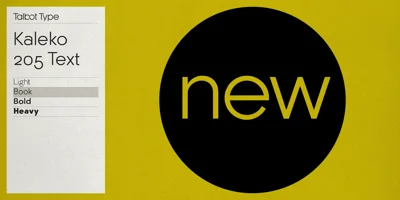
Kaleko 205 Text Font
Kaleko 205 Text Font is perfect for corporate document layouts, professional publications, editorial magazine designs, business report formatting, academic textbooks, technical documentation, contemporary book typography, and sophisticated reading materials.
Kaleko 205 Text Font is exciting because it represents the perfect synthesis of typographic excellence and reading comfort through its meticulously crafted character design that embodies the precision of modern typography and the optimal legibility required for extended reading applications. Its professional styling and readable appeal make it the perfect choice for brands that want to communicate competence, clarity, and the essential importance of effective written communication.
Kaleko 205 Text Font family includes multiple professional variations: Kaleko 205 Text Light, Kaleko 205 Text Regular, Kaleko 205 Text Medium, Kaleko 205 Text Bold, Kaleko 205 Text Italic, and Kaleko 205 Text Heavy, along with comprehensive character sets and professional typographic features, providing designers with comprehensive tools for creating sophisticated publishing and corporate communication experiences.
When exploring professional text typography solutions, Kaleko 205 Text Font emerges as the definitive choice for designers working on publishing and corporate projects that require genuine typographic sophistication and optimal readability. This exceptional typeface embodies the essence of professional communication while offering the technical precision that contemporary publishers and corporate organizations require. The font's readable character and professional authenticity create immediate connections with audiences who value clear communication and typographic excellence.
Publishing professionals consistently choose Kaleko 205 Text Font for projects requiring authentic typographic sophistication and powerful reading appeal. Its expertly engineered letterforms feature optimized characteristics that work exceptionally well in both large-scale corporate publication layouts and intimate business document applications. The font's ability to convey professionalism and reading comfort while maintaining perfect legibility makes it invaluable for comprehensive identity systems in the publishing, corporate communication, and professional documentation sectors.
Whether you're developing corporate publication identities, creating professional document systems, or designing editorial layout materials, Kaleko 205 Text Font delivers the authentic typographic character and professional appeal that resonates with audiences who demand clear communication and reading excellence. Its typographic significance and professional design ensure your projects achieve optimal readability while maintaining contemporary standards that attract modern readers and professional communication specialists.